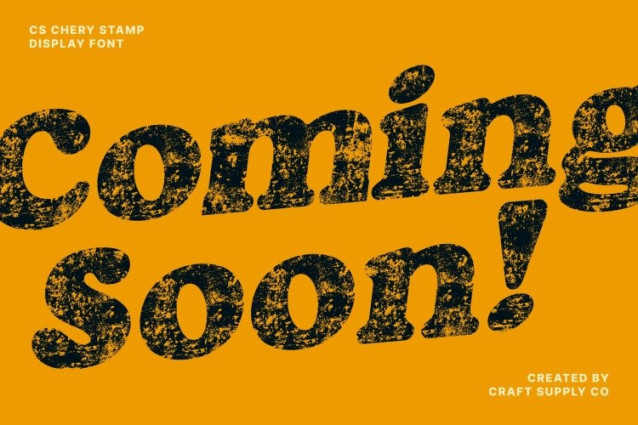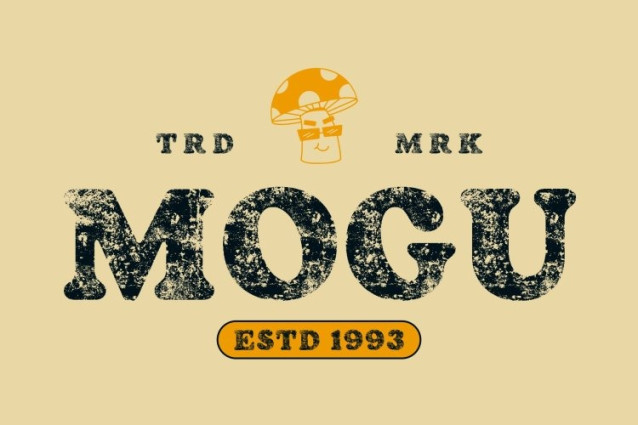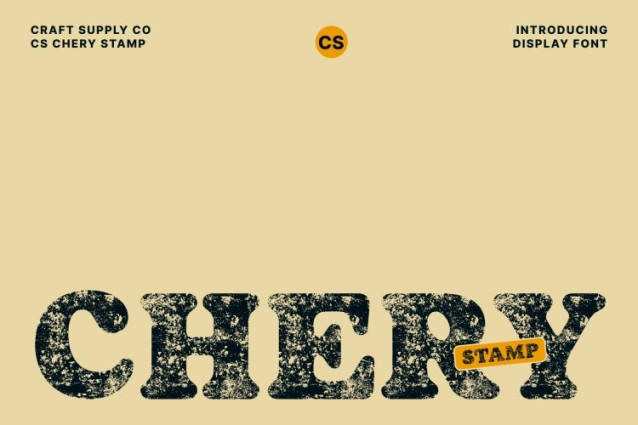
CS Chery Stamp Font
CS Chery Stamp Font The features a harmonious blend of bold structure and gentle curves. Its soft, thick serif shapes create a welcoming and expressive character, giving your text a strong yet approachable presence that stands out in any design layout.
Artistic Appeal Through Stamped Texture
The added stamp effect enriches the font with a handcrafted, textured finish. This artistic detail introduces an imperfect, organic quality that enhances the font’s charm, making each letter feel unique and visually engaging. The combination of softness and roughness brings a balanced, expressive personality to your typography.
Vintage-Like Style with Modern Versatility
This font carries a subtle vintage feel thanks to its textured surface, but its clean serif structure keeps it relevant for modern projects. This duality makes it ideal for designers seeking a touch of nostalgia without sacrificing contemporary appeal.
Ideal for Expressive Display and Branding
Perfect for logos, packaging, posters, editorial titles, and artistic branding, adds depth and visual interest wherever it’s used. Its bold weight ensures impact, while the textured vintage style provides warmth and character making it a compelling choice for creative, expressive, and memorable design work